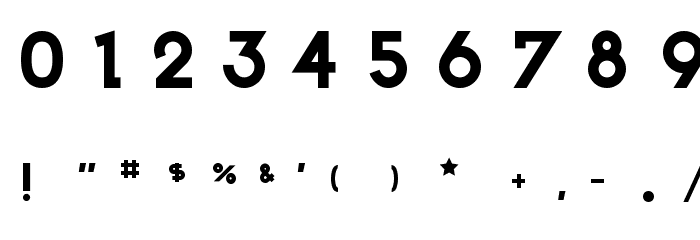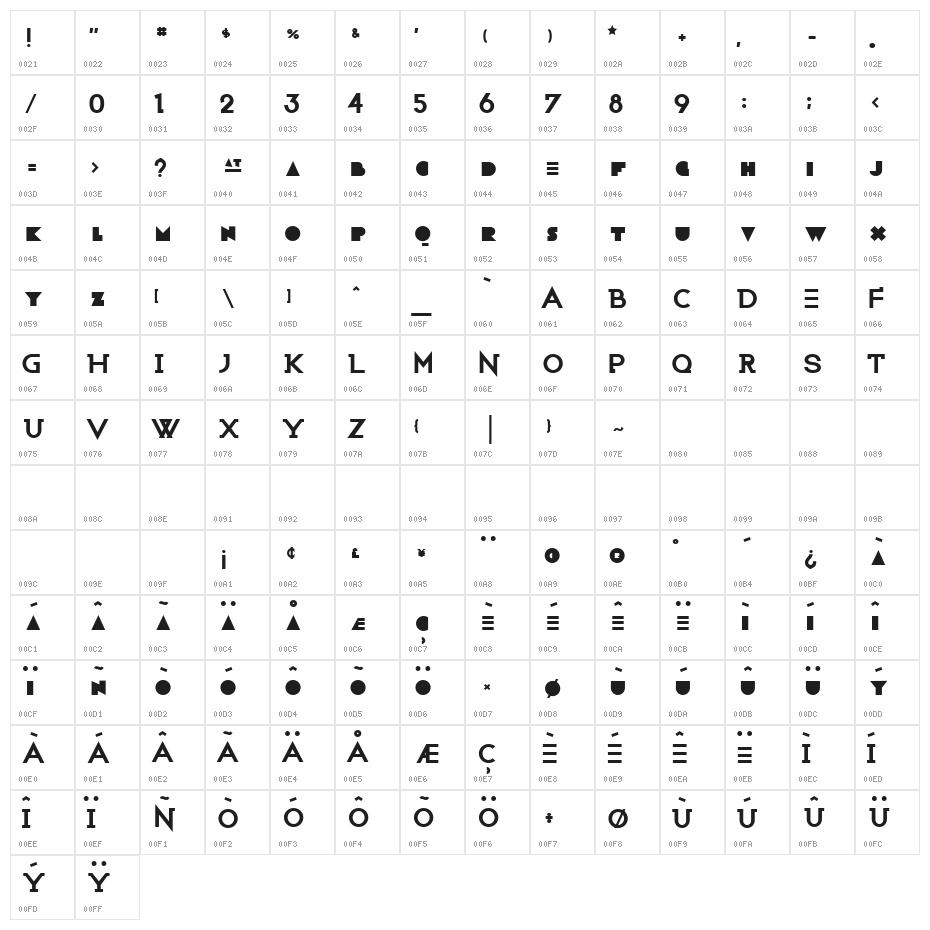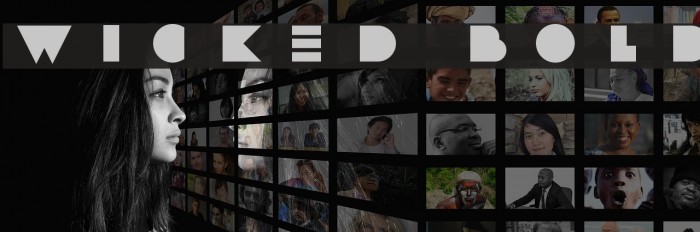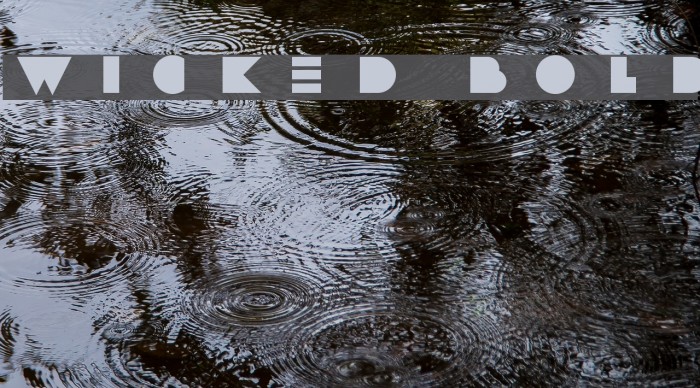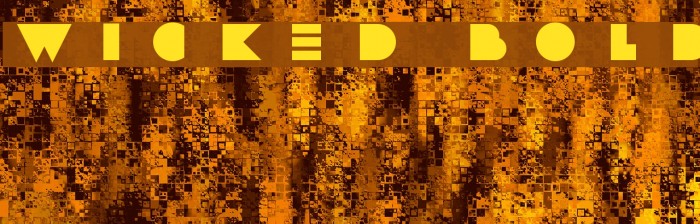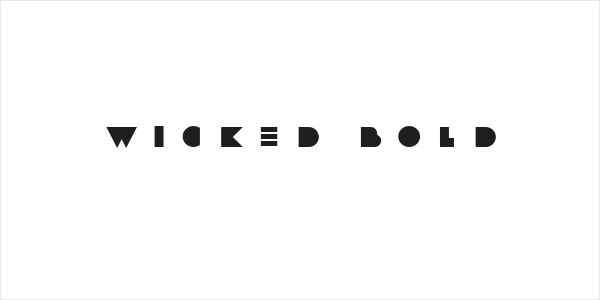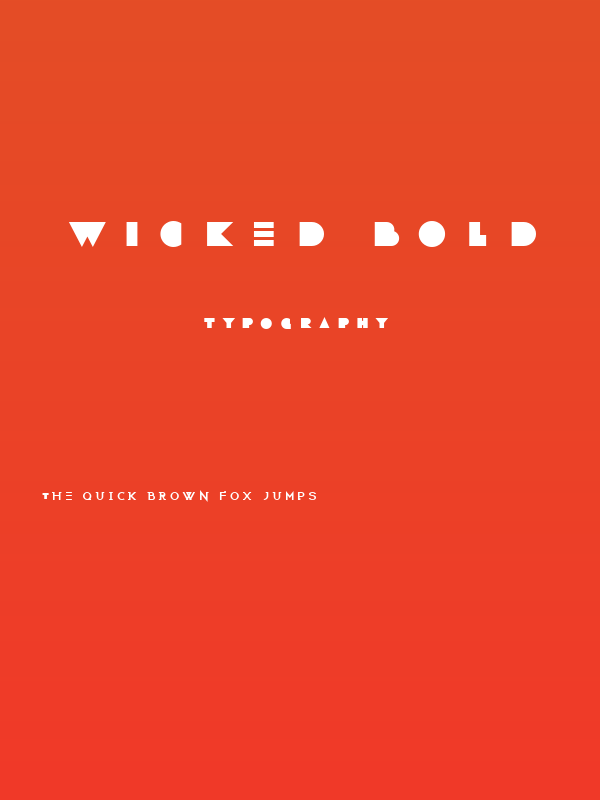
WICKED BOLD Font
WICKED BOLD Description
This font features a bold and striking design with geometric elements that create a modern and edgy appearance. The uppercase letters are characterized by sharp angles and unique cutouts, giving them a distinctive look. The lowercase letters maintain a consistent style, complementing the uppercase with their bold structure. Numbers are equally bold, ensuring readability and impact. Special characters are designed to match the overall aesthetic, with a focus on maintaining the geometric theme. This font is ideal for projects that require a strong visual presence and a contemporary feel.
| Proposed Projects | Ideal for branding, posters, headlines, and any project requiring a strong visual impact. |